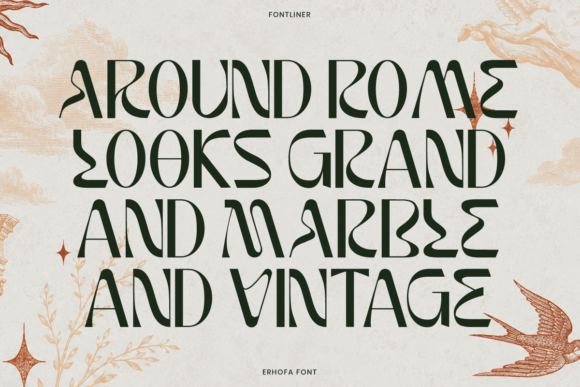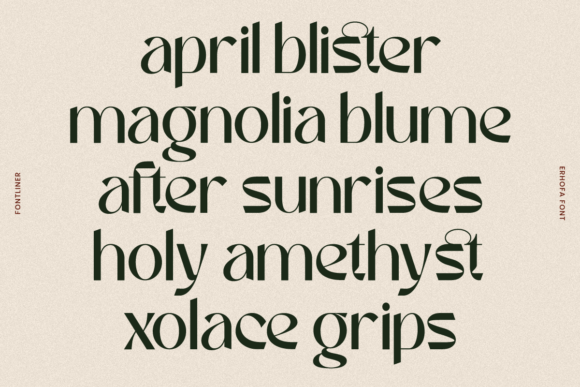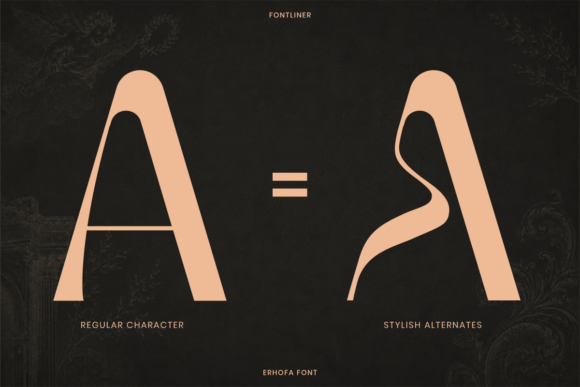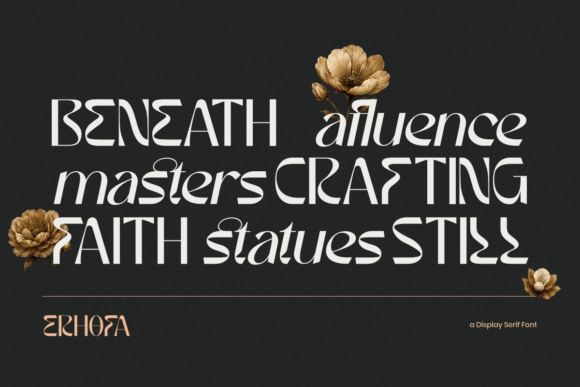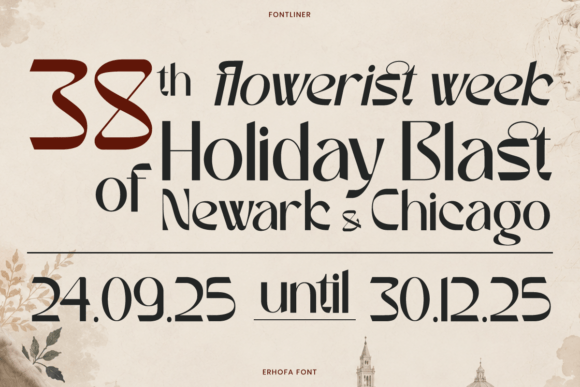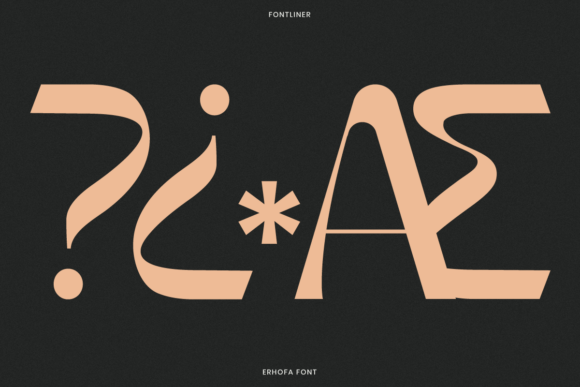
Introducing Erhofa Font: Elevate Your Design with Sophistication and Elegance
In the world of typography, a font can make or break the visual identity of a brand. For designers and crafters seeking to create a luxurious and premium feel, Erhofa Font is the perfect solution. This sophisticated display sans serif font seamlessly blends modern elegance with artistic character, making it ideal for high-end branding, editorial layouts, and upscale social media content.
Distinctive Design Elements
Erhofa Font boasts distinctive high-contrast strokes, graceful curves, and stylish unconventional letterforms that set it apart from other typefaces. Its unique design elements create a refined balance between contemporary minimalism and decorative expression, making it perfect for designers who want typography with personality.
The font’s high-contrast strokes add a touch of sophistication, while its graceful curves provide a sense of fluidity and movement. The unconventional letterforms, on the other hand, add a dash of creativity and playfulness, making Erhofa Font a versatile choice for a wide range of design projects.
Ideal Applications
Erhofa Font is designed to make a statement, making it perfect for:
- Logos: Create a lasting impression with a custom logo that exudes luxury and sophistication.
- Editorial Layouts: Elevate your magazine, newspaper, or online publication with elegant and refined typography.
- Beauty Packaging: Make your product stand out on store shelves with premium and eye-catching packaging.
- Perfume Labels: Create a scent that’s not only alluring but also visually stunning.
- Boutique Branding: Establish a high-end identity for your fashion, jewelry, or lifestyle brand.
- Wedding Invitations: Set the tone for an elegant and unforgettable celebration.
- Upscale Social Media Content: Elevate your online presence with sophisticated and engaging typography.
Crafted for Designers
Erhofa Font is crafted with designers in mind, offering a range of features that make it easy to create stunning typography:
- Unique Alternates: Add exclusivity and versatility to your design with a range of alternate characters.
- Ligatures: Create seamless and elegant connections between letters.
- Refined Balance: Enjoy a perfect balance between contemporary minimalism and decorative expression.
Luxury and Versatility
Erhofa Font is the perfect choice for designers and crafters seeking to create a luxury feel. Its versatility allows you to experiment with different styles, from elegant and refined to bold and statement-making.
Whether you’re building a luxury fashion campaign or an elegant branding project, Erhofa Font delivers a premium designer feel that’s sure to impress. With its sophisticated design elements, unique alternates, and ligatures, this font is the perfect tool for creating standout wordmarks and unforgettable headlines.
In conclusion, Erhofa Font is a game-changer for designers and crafters seeking to elevate their typography. Its sophisticated design elements, versatility, and range of features make it the perfect choice for high-end branding, editorial layouts, and upscale social media content.